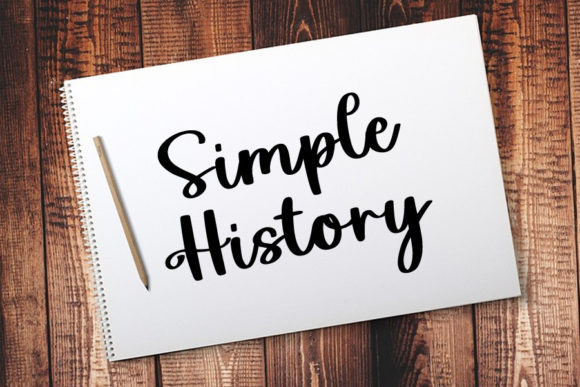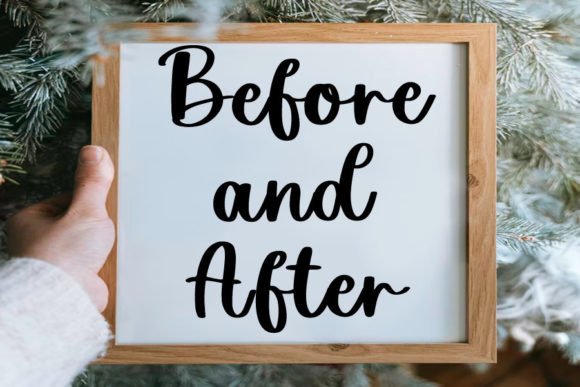
Holiday Saturday Font
db-ku.com - Script & Handwritten -- Holiday Saturday This font is a fresh and beautiful font, good for your design purposes such as Youtube banners, Cover Logo Mockups, Wedding Invitations, Id Cards, Flayer, Crafts. By using this font your business will progress and develop. Apart from that this font is simple and unique.